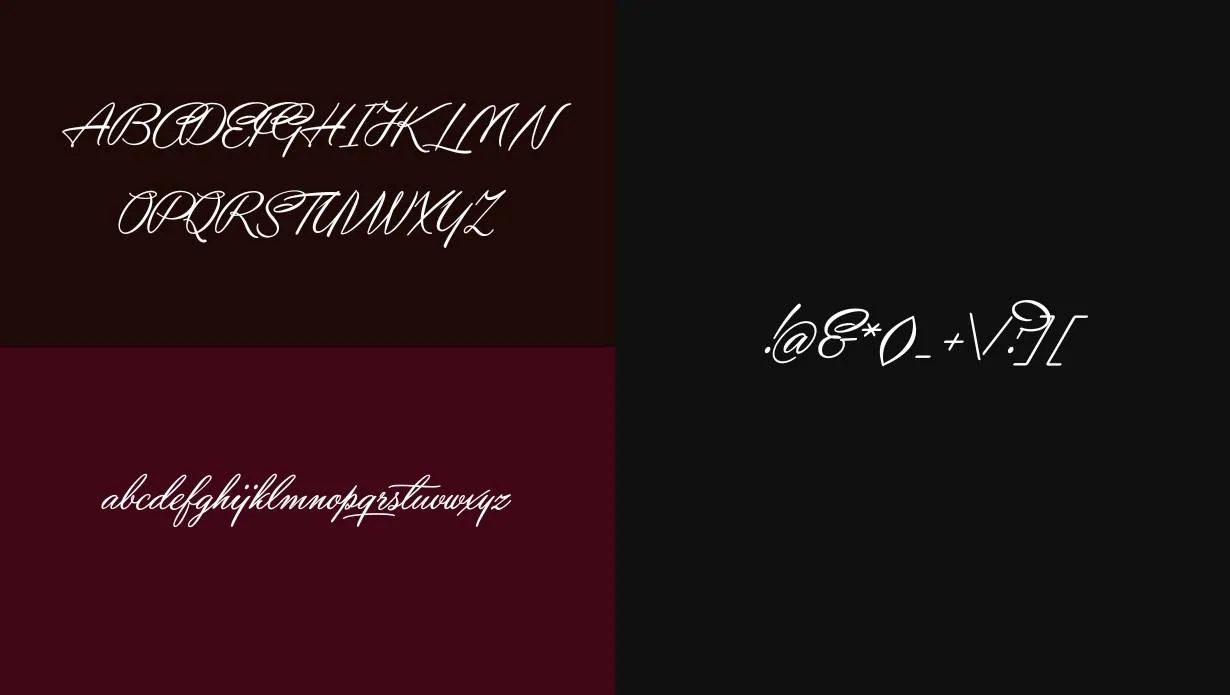
Yaquote Script Font is known for its clean and minimalist design, often chosen for editorial design, websites, and documents.
Yaquote Script Font Family
| Designer | Måns Grebäck |
Its straightforward lines and contemporary style make it a practical choice for conveying clarity and professionalism in your projects.